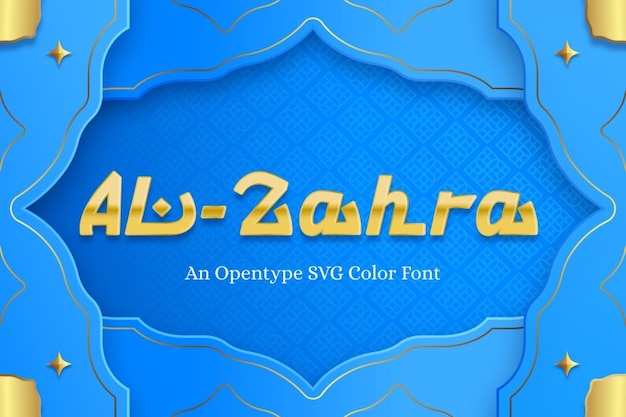
Al-Zahra Font
A font that seamlessly embodies the beauty of Arabic script with a touch of classic luxury. Its letters are a testament to the richness of tradition and design. With each character, you're immersed in a world of sophisticated elegance. Experience the opulence of 'Al-Zahra', where every letter is a brushstroke of Arabic artistry and timeless class, creating a typographic masterpiece that's both exquisite and luxuriously classic.